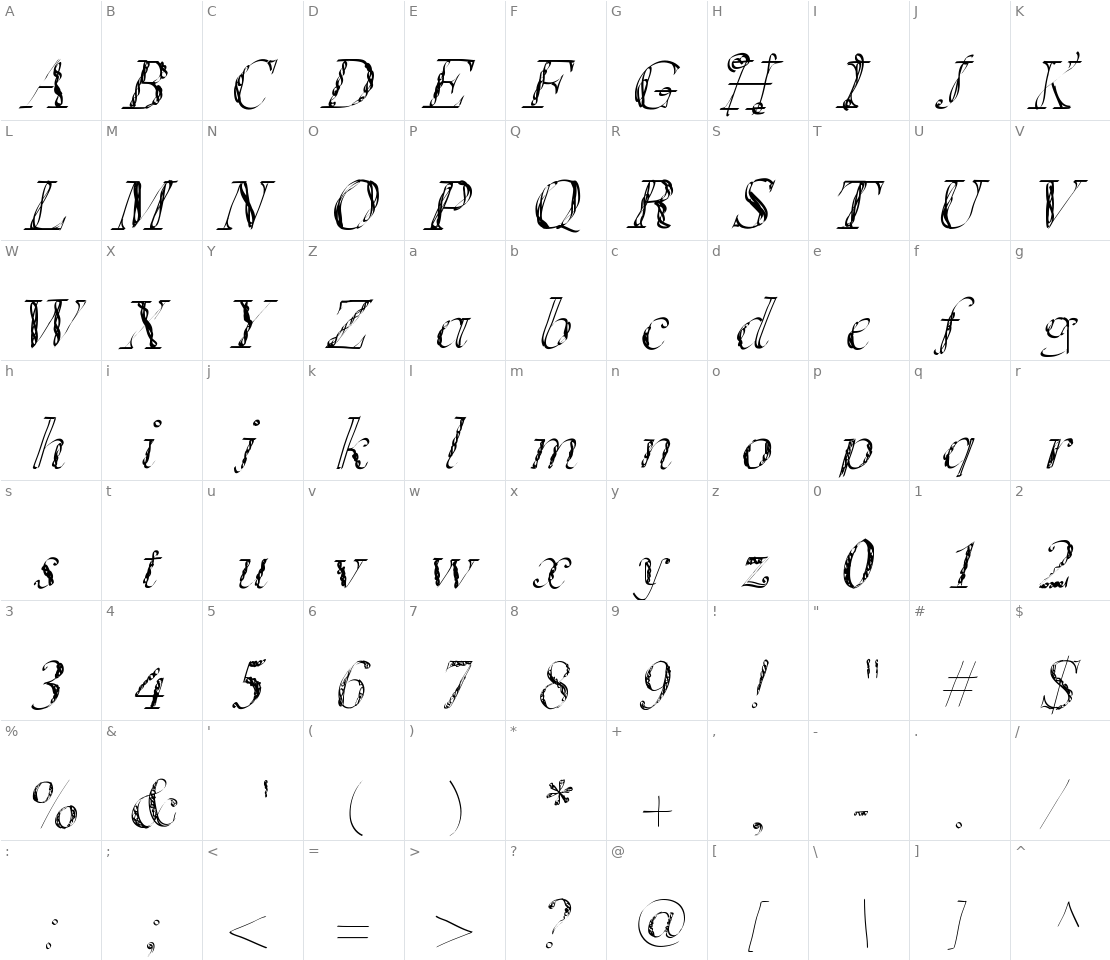
Lets Do Brunch
by Christina Smith
Lets Do Brunch is an elegant script face by Christina Smith with an engraved, textured quality that gives each letter the look of copperplate printing or vintage stationery. The flowing italic strokes feel formal and refined, with just enough decorative flourish to read as fancy without becoming fussy. A natural pick for wedding invitations, event signage, and branding that calls for old-world charm.